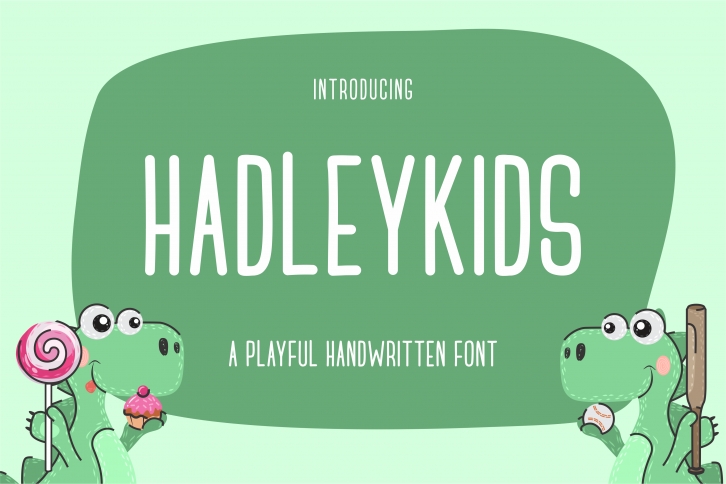
Hadleykids is a cool, robotic styled and thin lettered display font. This font is ideal for writing web designs, business cards, or pretty much anything else that requires a unique touch.